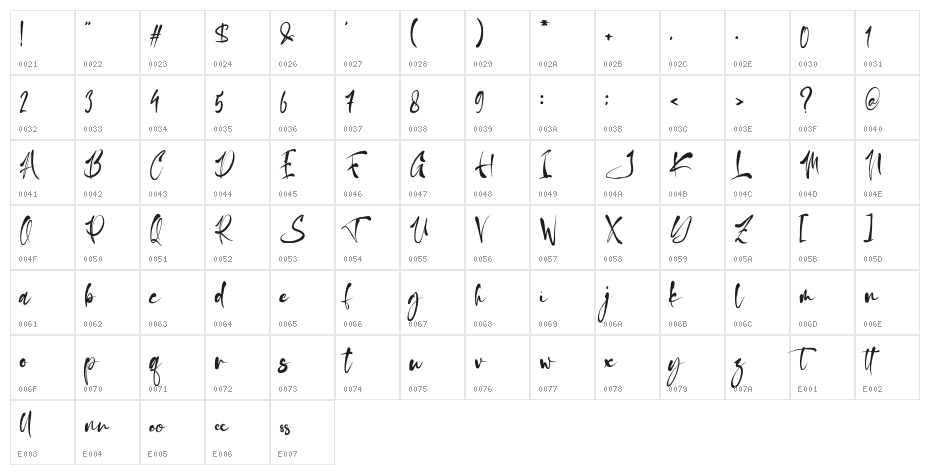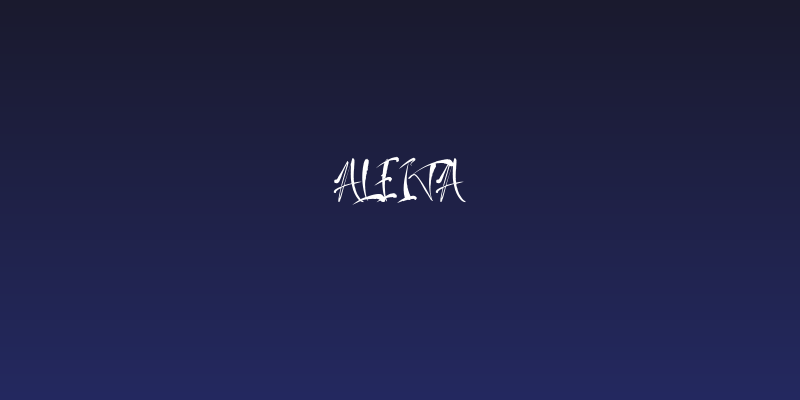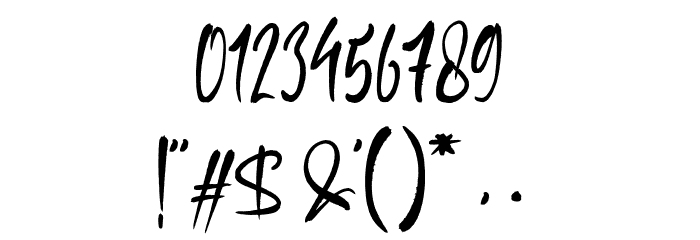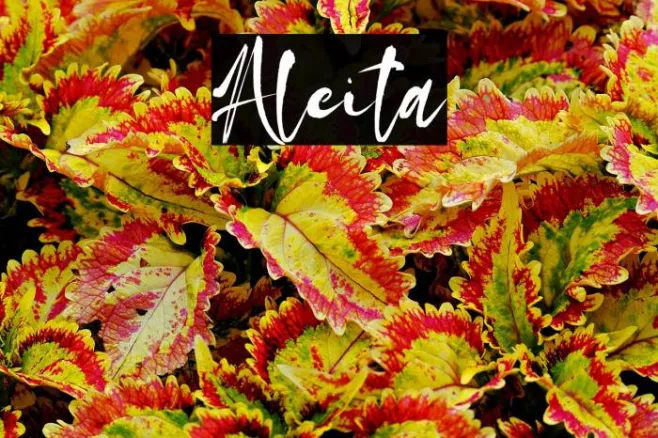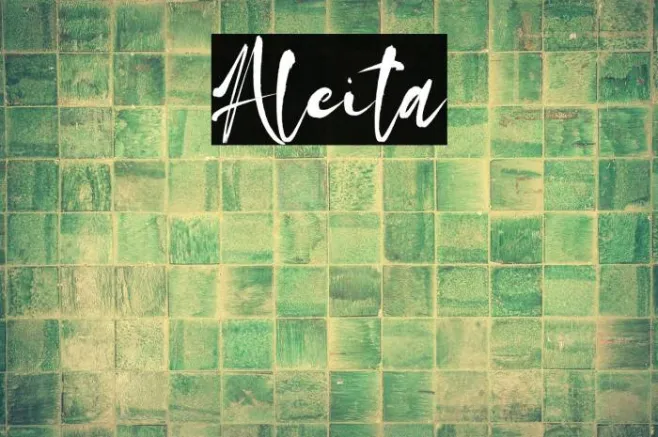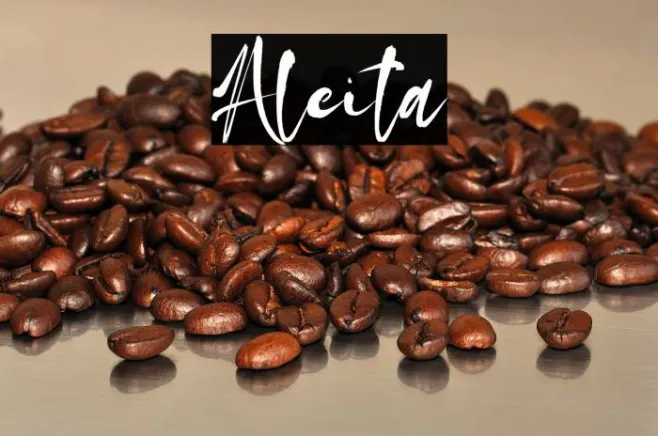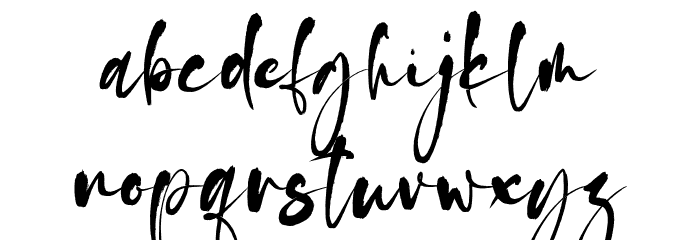
Aleita Font
Aleita Description
This font exudes a dynamic and expressive style, characterized by its fluid, handwritten appearance. The letters are crafted with a sense of motion, featuring sweeping curves and varying stroke widths that give it a lively and artistic feel. The uppercase letters are bold and prominent, while the lowercase letters maintain a consistent flow, enhancing the overall aesthetic. The numbers and special characters are designed to complement the alphabet, maintaining the same energetic style. This font is perfect for projects that require a personal and creative touch, such as invitations, branding, or artistic designs.